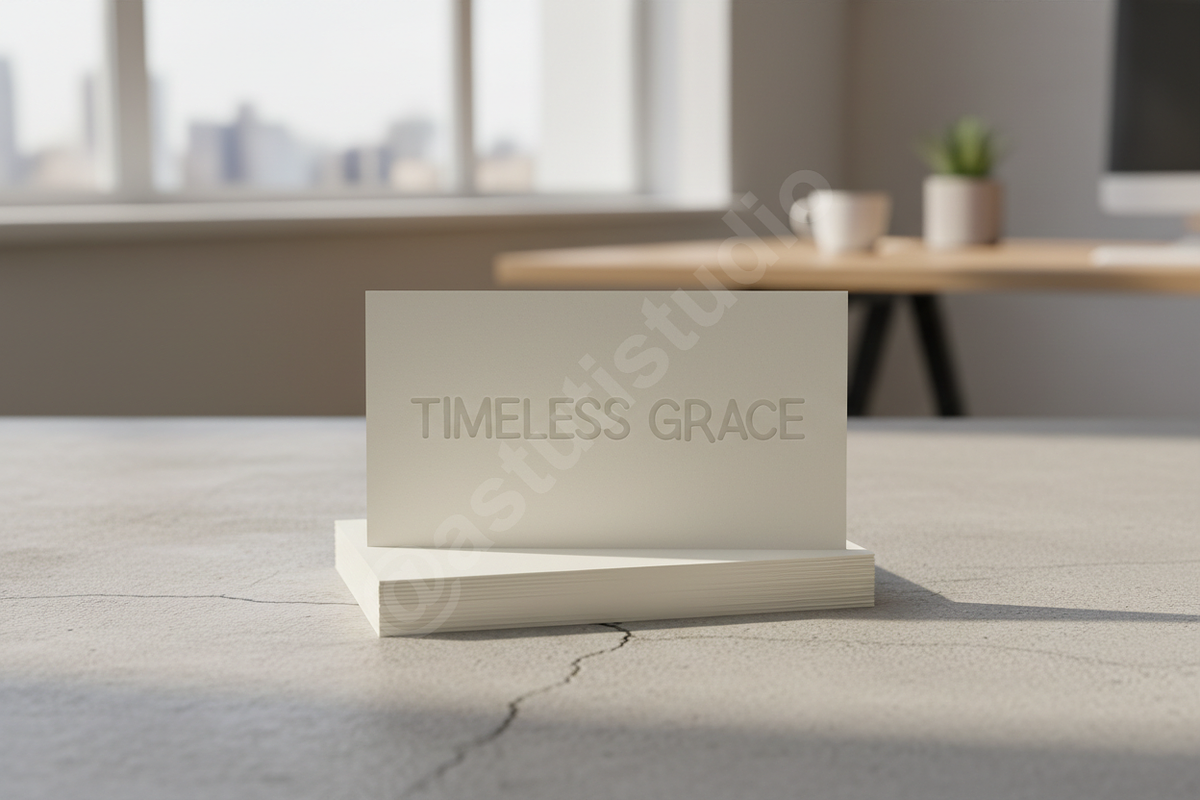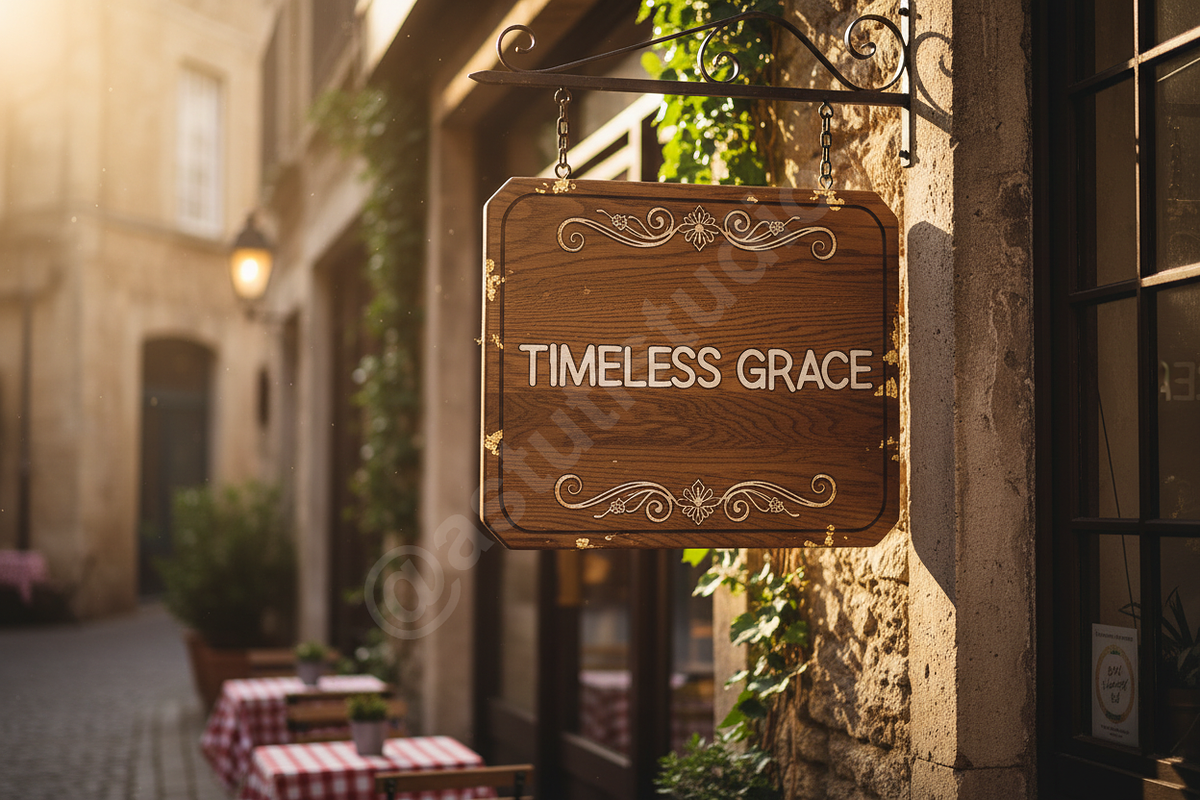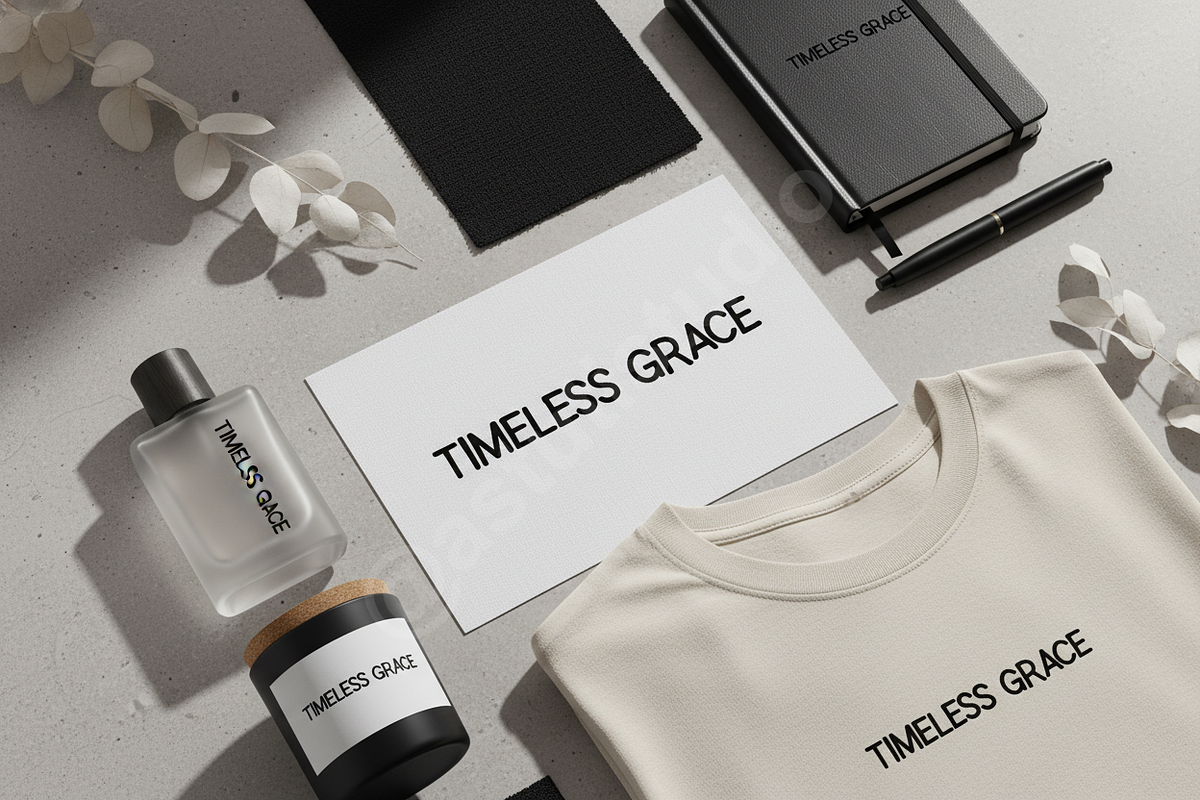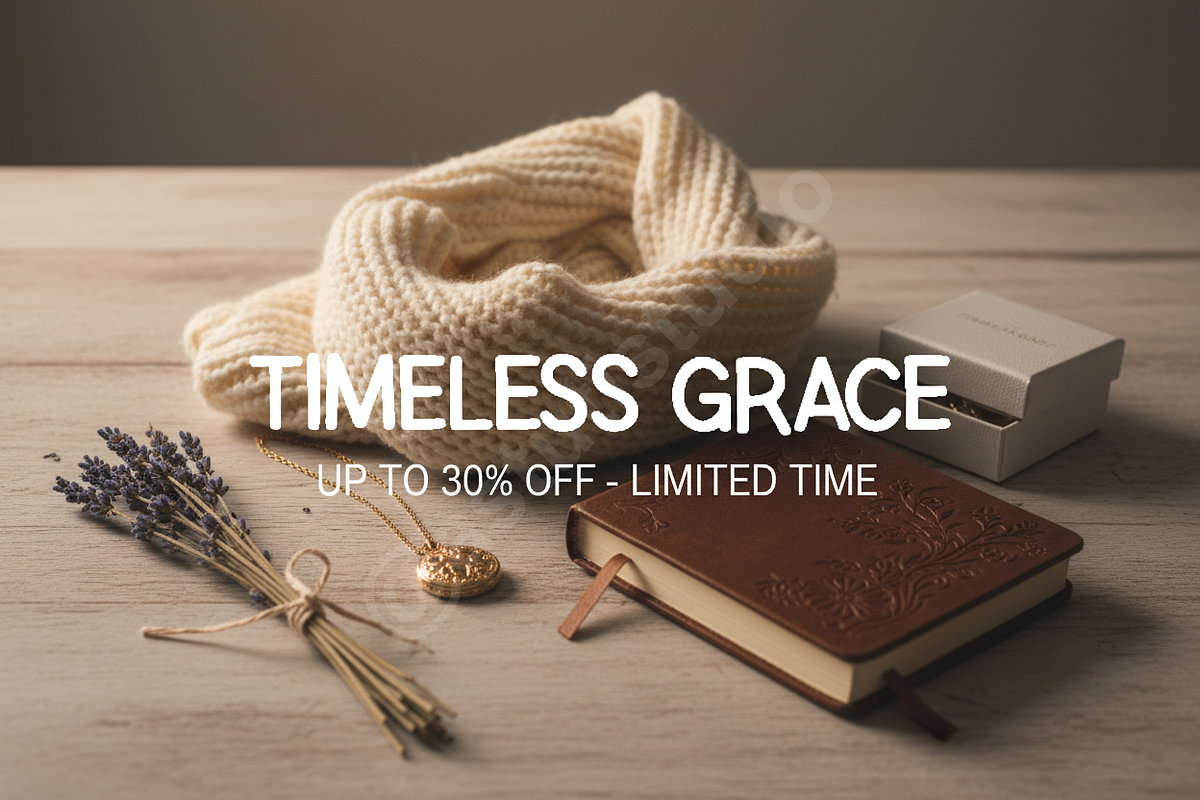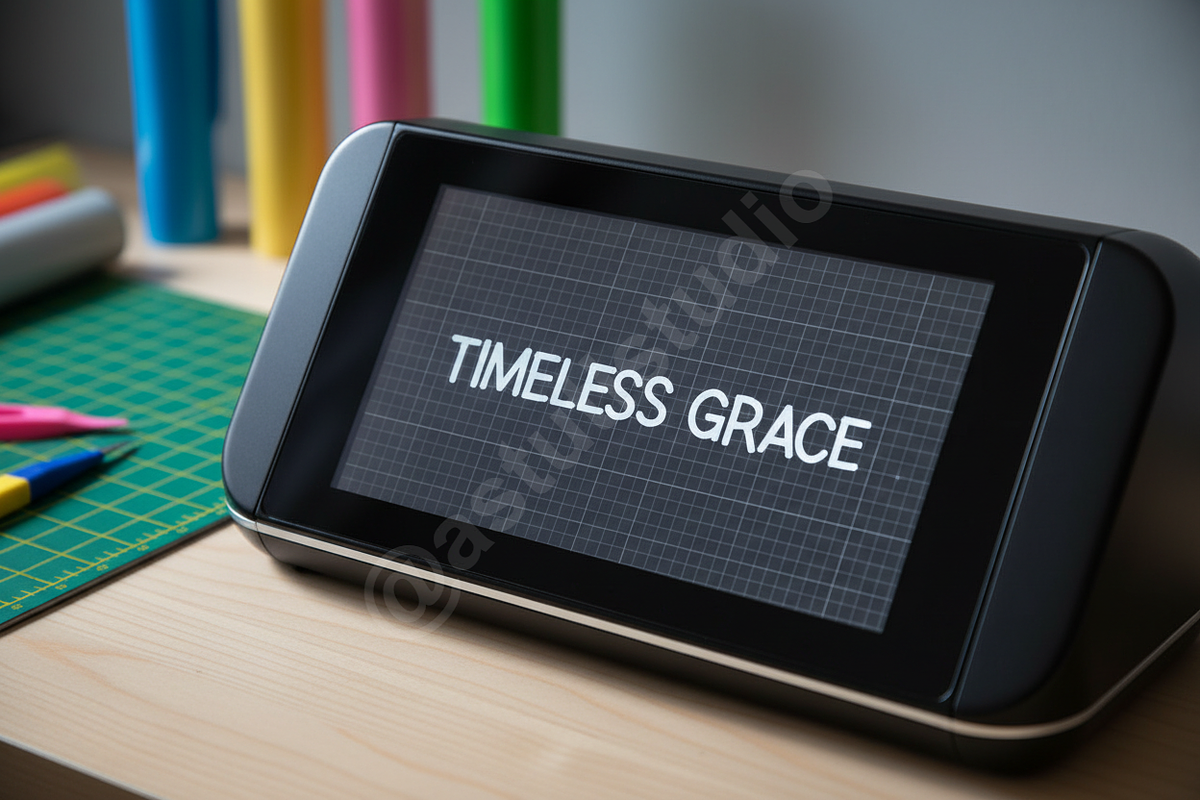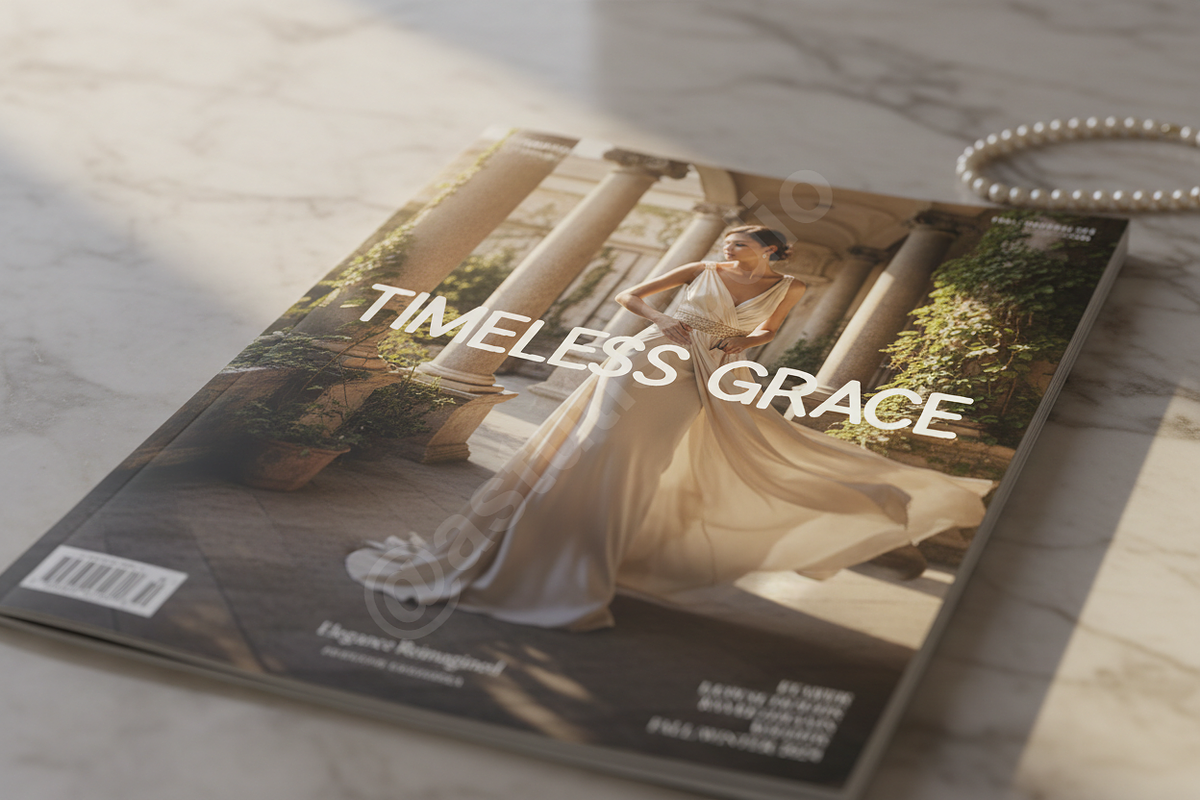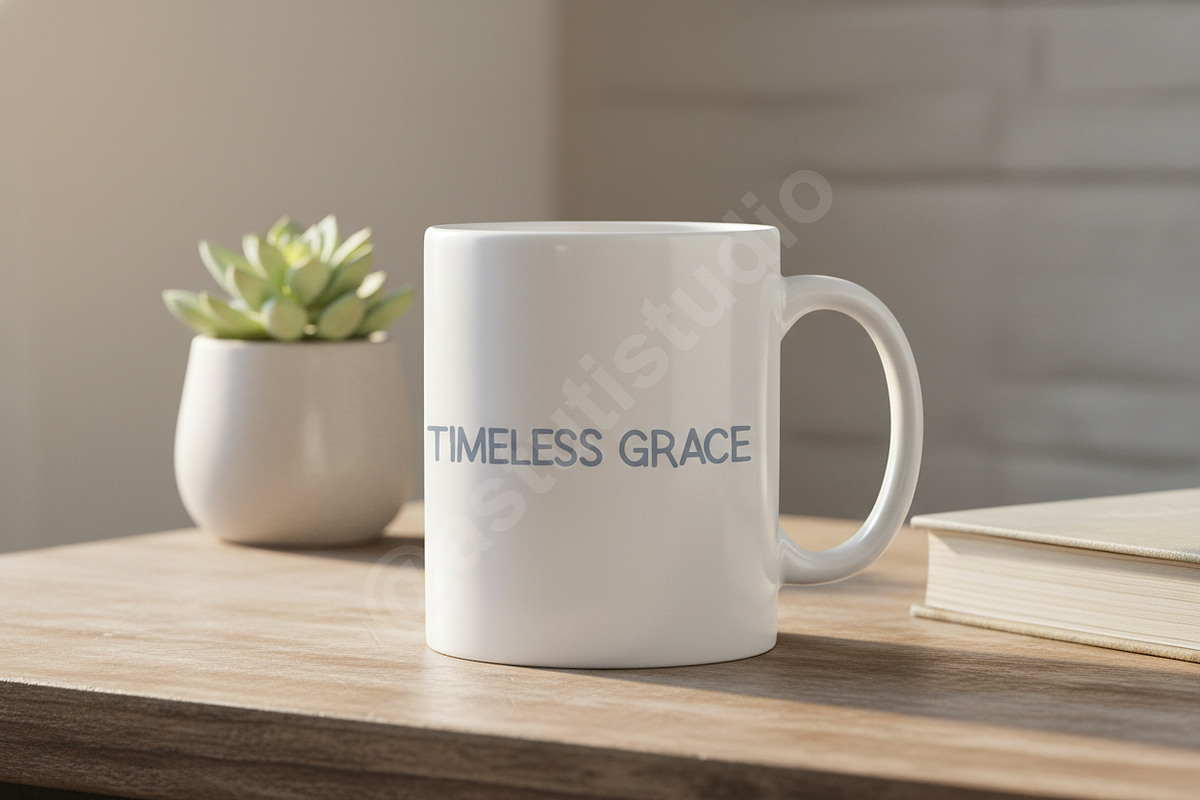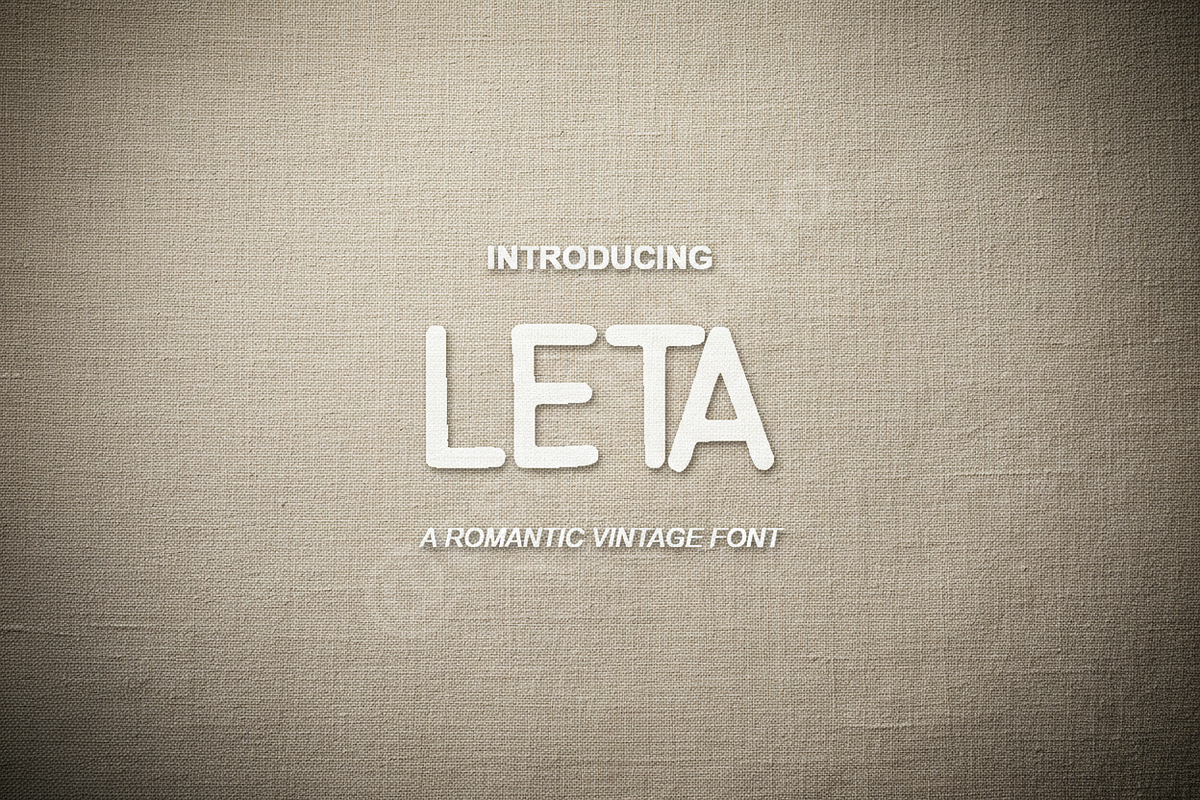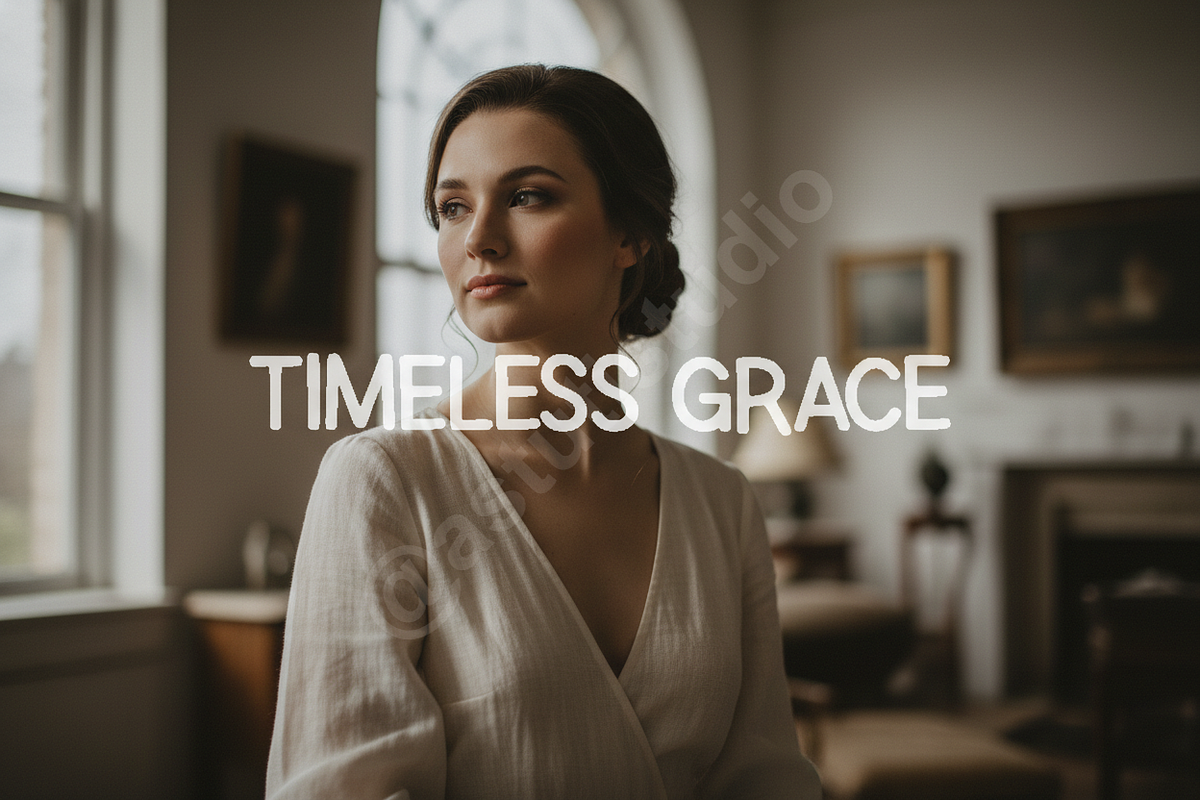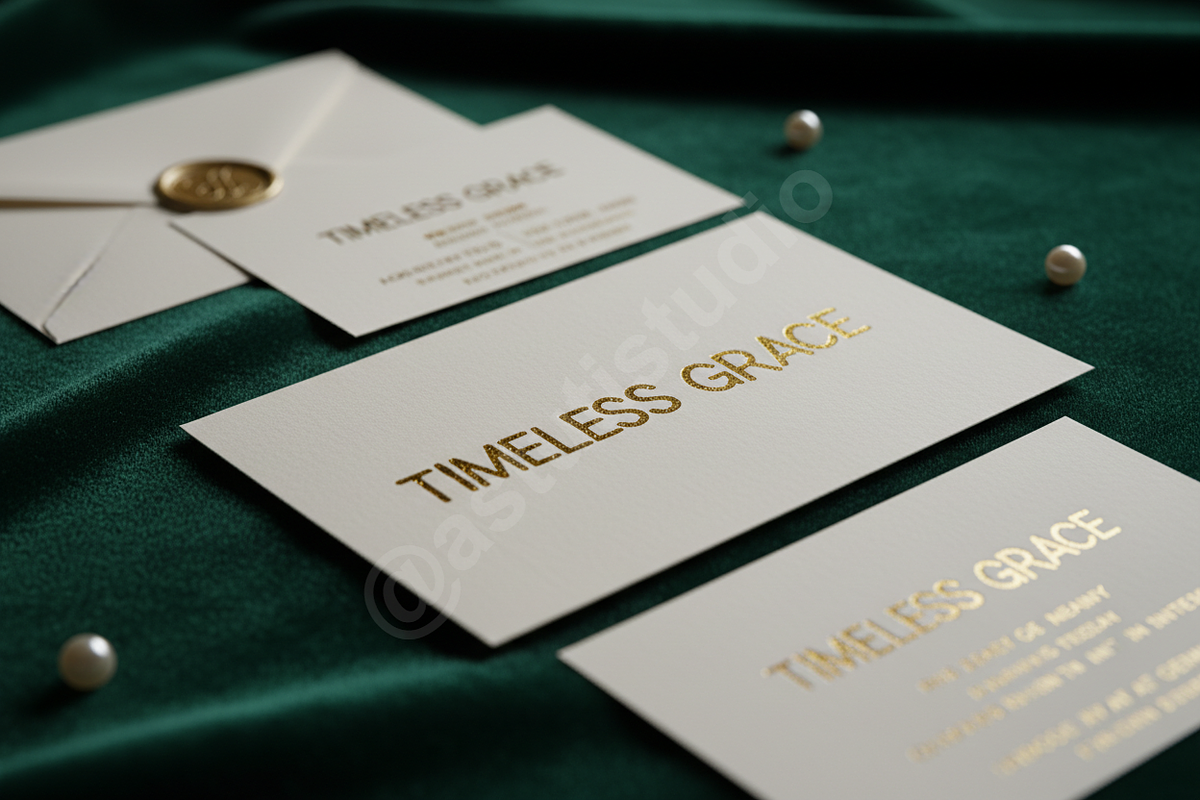
Leta | Sophisticated Minimalist Seri
INTRODUCTION Introducing Leta, a refined serif typeface meticulously crafted for the modern aesthetic. Designed with a focus on elegance and balance, Leta offers a premium feel that enhances any creative project. Whether you are developing a luxury brand identity, designing an editorial layout, or crafting high-end social media content, Leta provides the sophisticated touch your work deserves.
- Clean, high-contrast serif letterforms
- Timeless and versatile character design
- Optimized for both display and body text